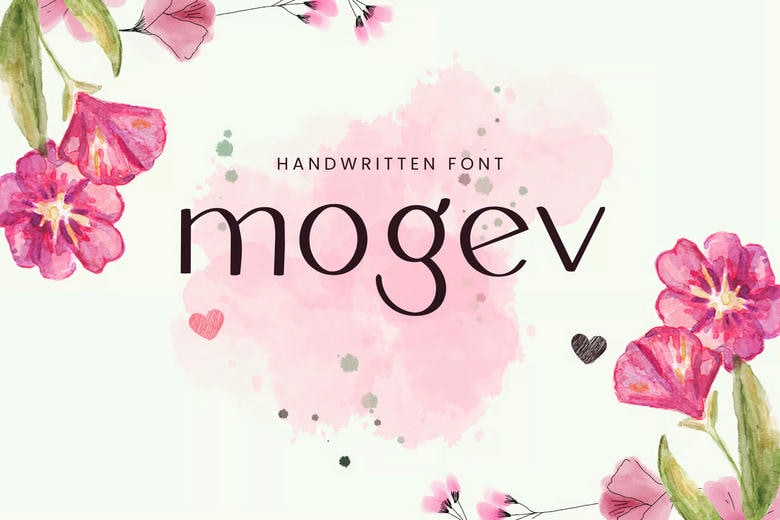
Mogev Font
Mogev is a fun and funky display typeface. It is the most suitable when it comes to making eye-catching branding, logos and quotes. The letters are beautifully and uniquely touched and will bring your designs to life. Mogev has a complete range of upper and lower cases and digits and punctuation marks.
Mogev Sans Serif Font